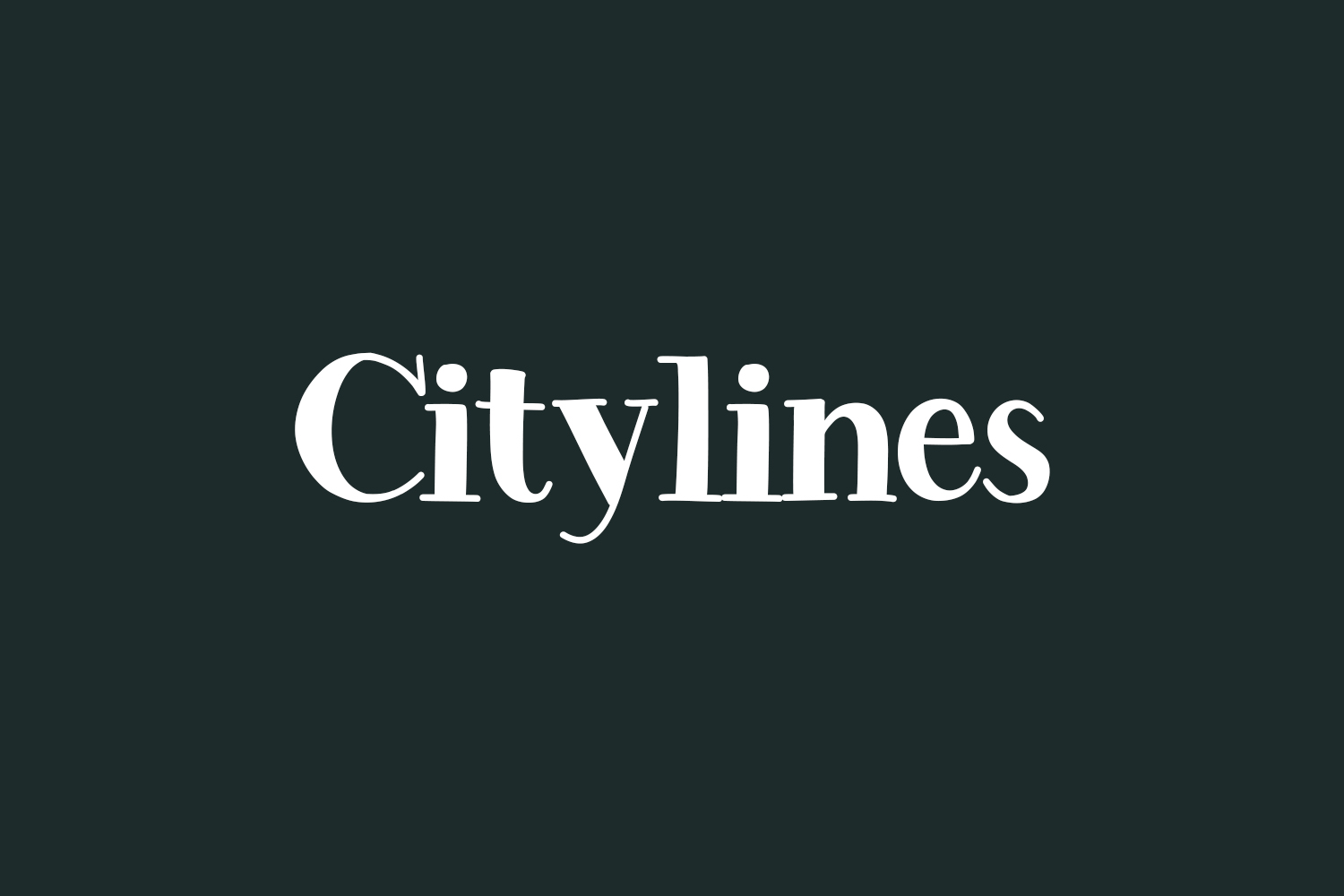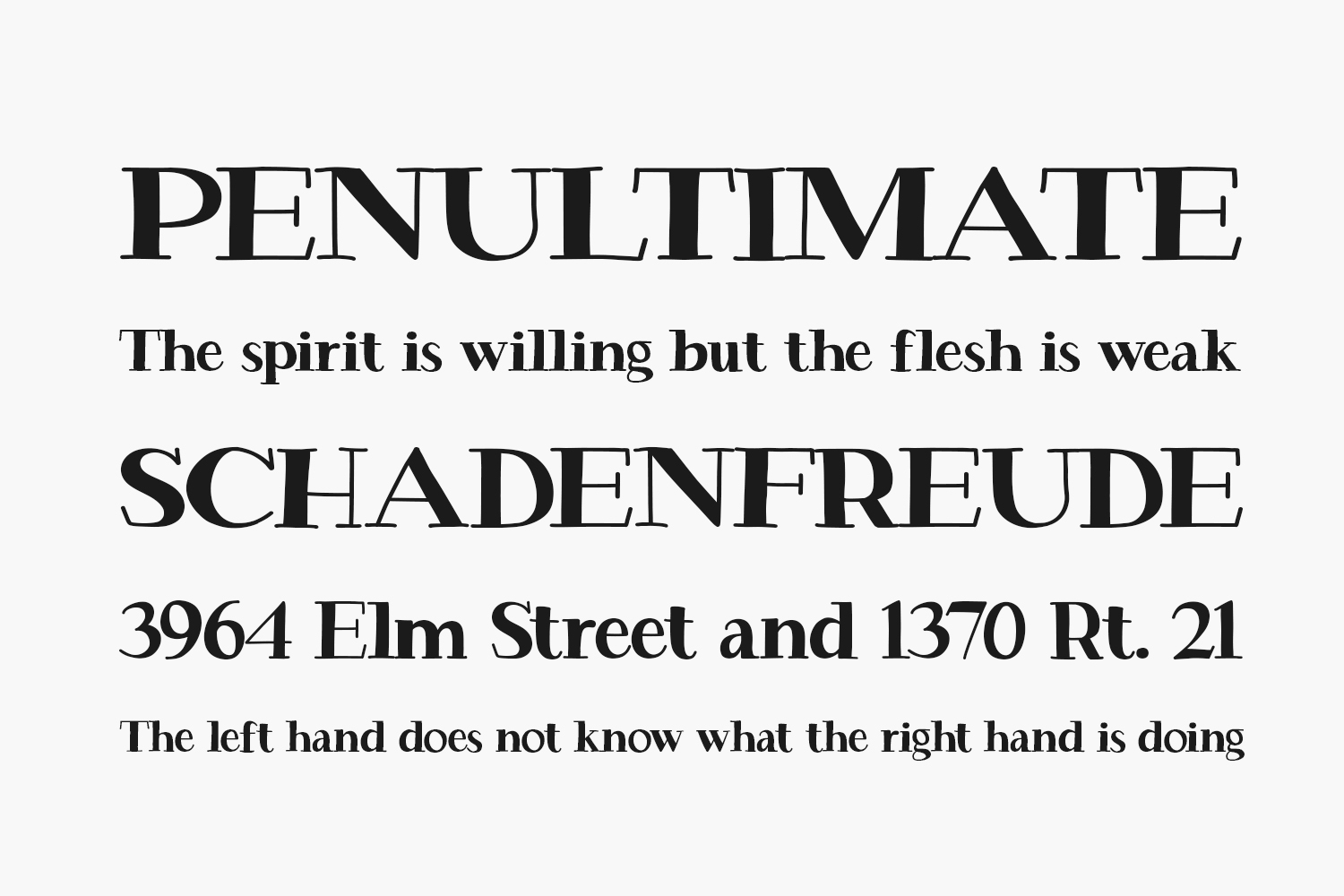
Citylines Free Font presents a contemporary and charming serif font, ideal for various design projects such as posters, logos, magazines, book covers, banners, and beyond! Acquire this remarkable font to infuse your designs with a touch of loveliness. Its versatility allows seamless integration into a vast array of projects, enhancing your creative ideas and helping them truly shine. Citylines Free Font is free for personal or commercial use.